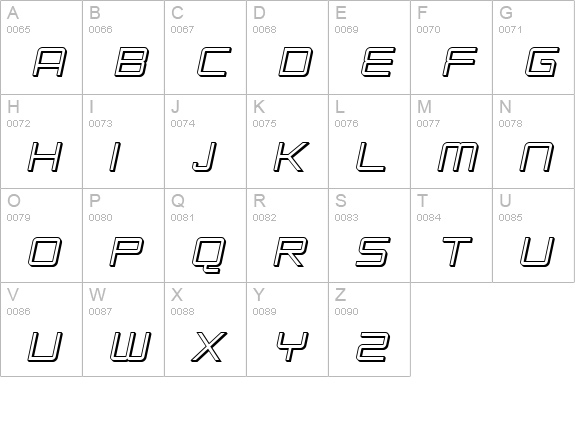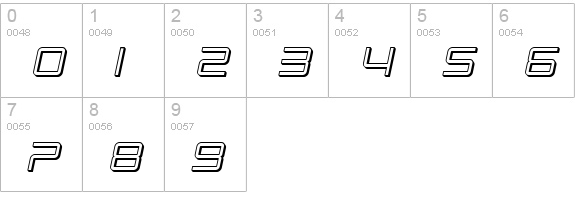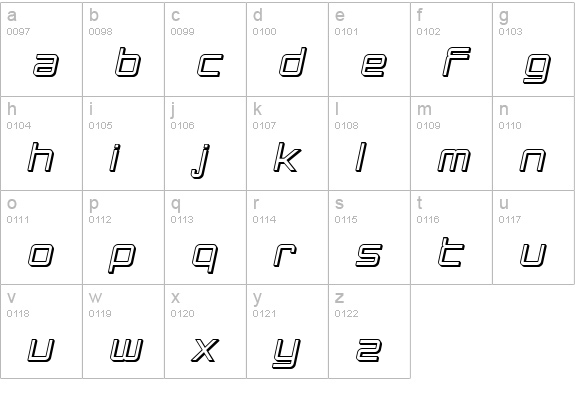
SF Chromium 24 Oblique Font Details
SF Chromium 24 Oblique is a distinctive, italic variant in the SF typeface family \xE2\x80\x94 well suited to design and typography projects.
SF Chromium 24 Oblique is a contemporary and versatile font that exudes a sense of modernity and sophistication. Its sleek and slanted design adds a touch of elegance to any project, making it perfect for a wide range of applications, from logos and branding to headlines and titles. This font features clean lines and sharp angles, giving it a distinct and eye-catching appearance. The oblique style adds a dynamic and energetic feel, making it ideal for projects that require a bold and impactful visual presence. SF Chromium 24 Oblique is freely available to download at FontsMarket.com, making it accessible to anyone in need of a high-quality typeface without breaking the bank. Whether you're a professional designer or a hobbyist seeking to elevate your creative endeavors, this font is a valuable addition to your font library. With its extensive character set, SF Chromium 24 Oblique offers support for multiple languages, ensuring that you can effectively communicate your message to a diverse audience. Its legibility and readability are exceptional, ensuring that your text remains clear and easily understood, even at smaller sizes. The versatility of SF Chromium 24 Oblique extends to its compatibility with various design software and applications. Whether you're working on a print project or a digital design, this font seamlessly integrates into your workflow, providing you with the flexibility to bring your vision to life. In summary, SF Chromium 24 Oblique is a stylish and contemporary font that combines elegance with a touch of edginess. Its freely available download at FontsMarket.com makes it accessible to all, allowing you to add a touch of sophistication and professionalism to your designs effortlessly.